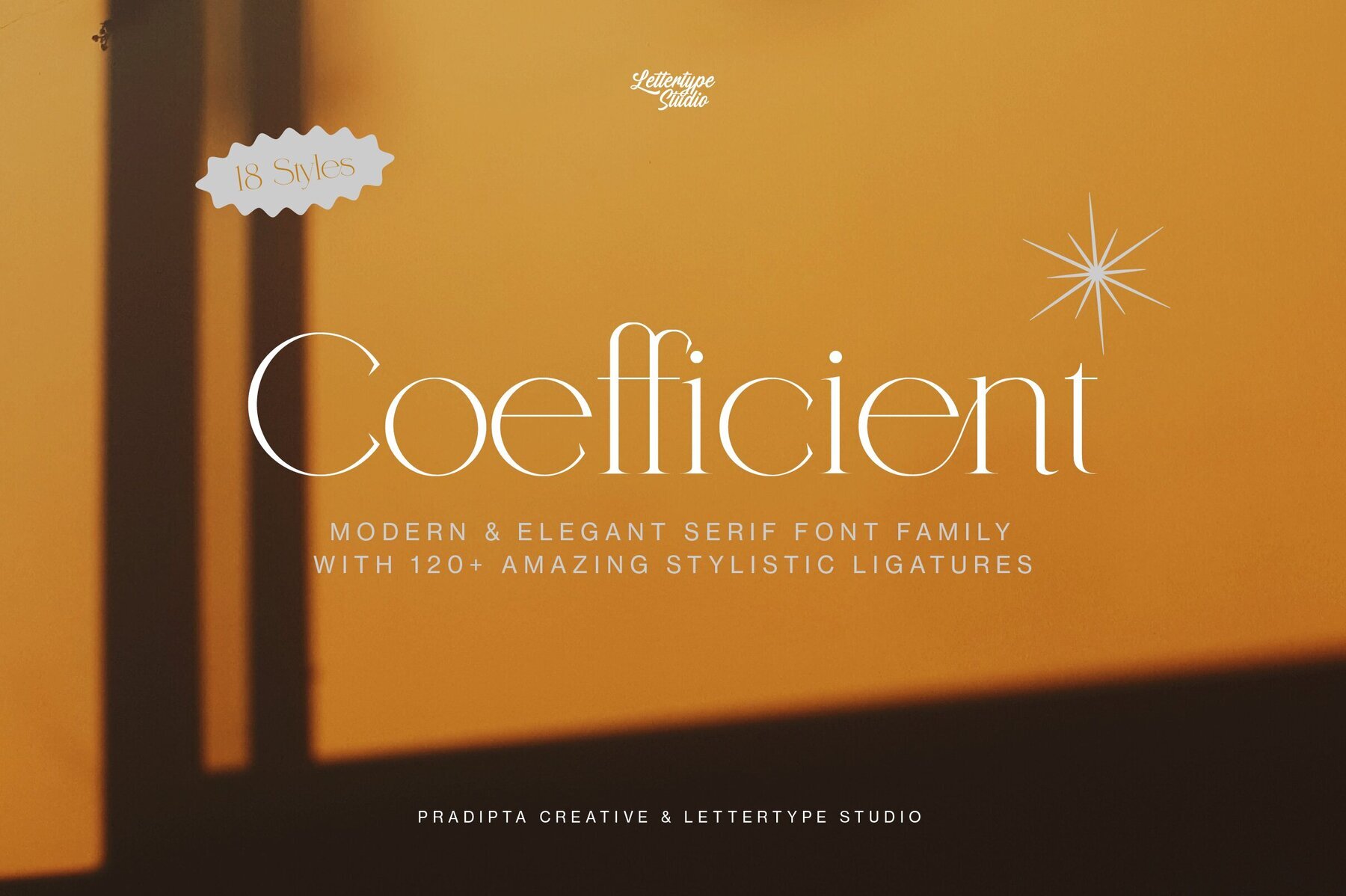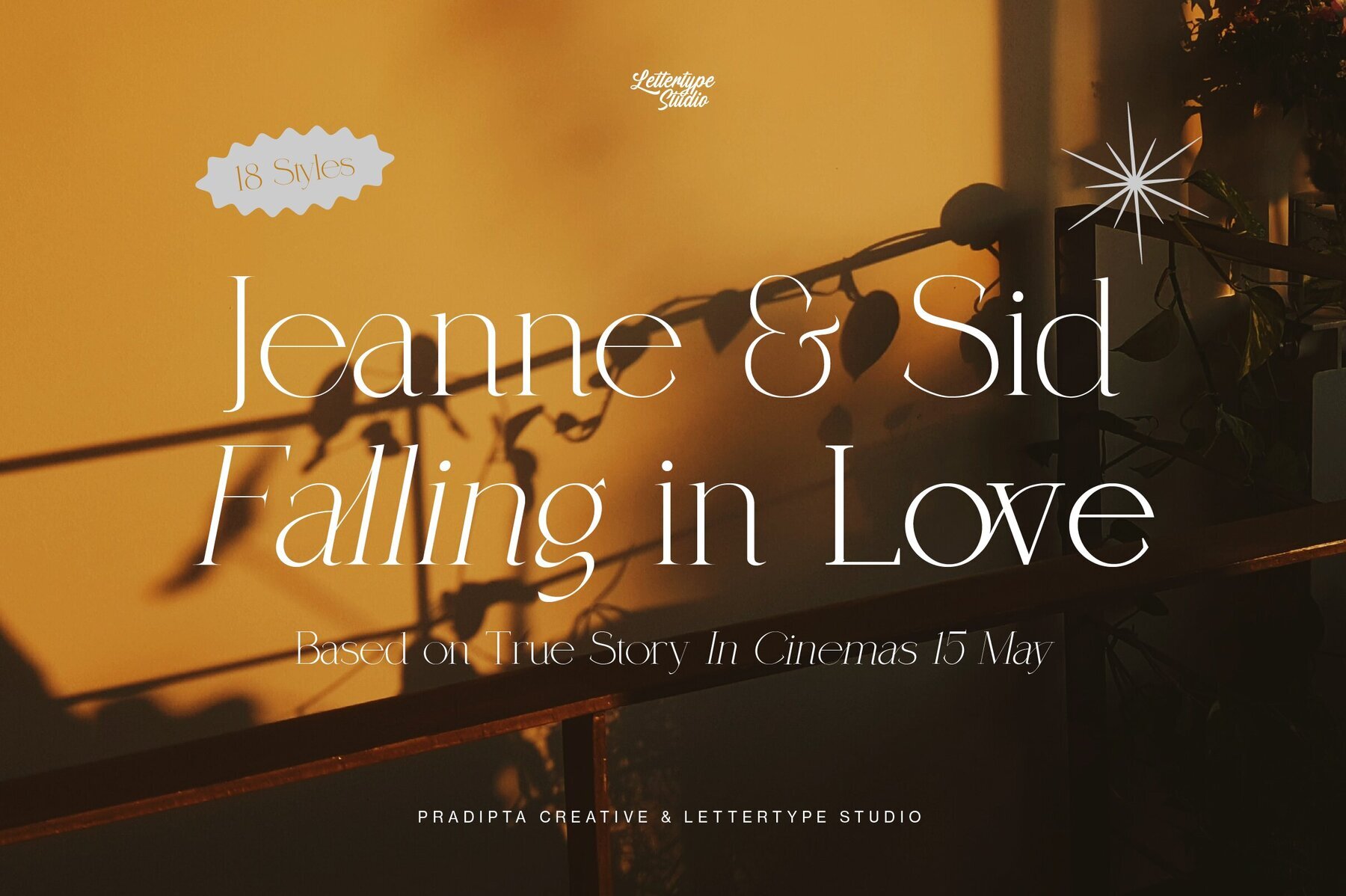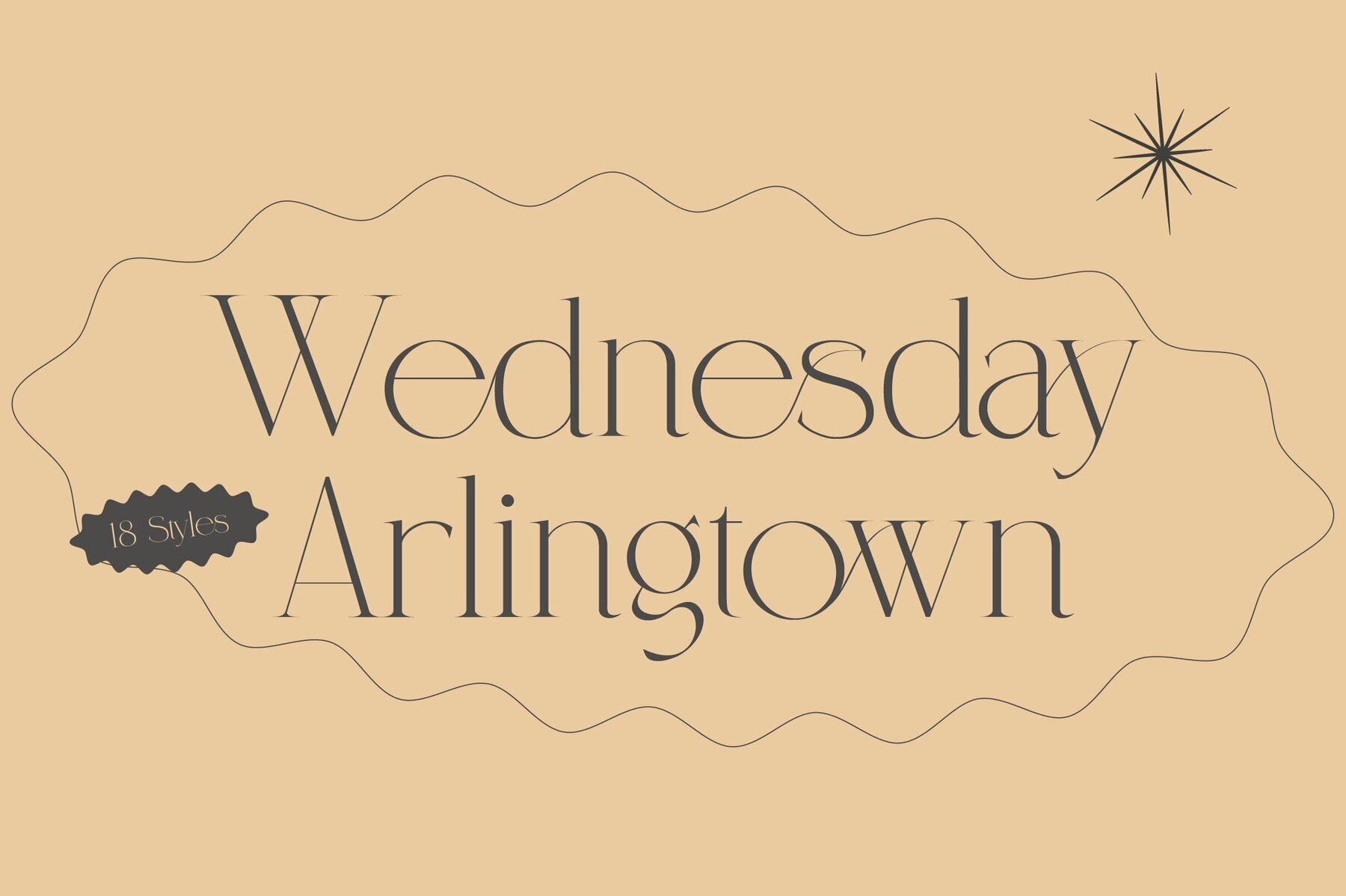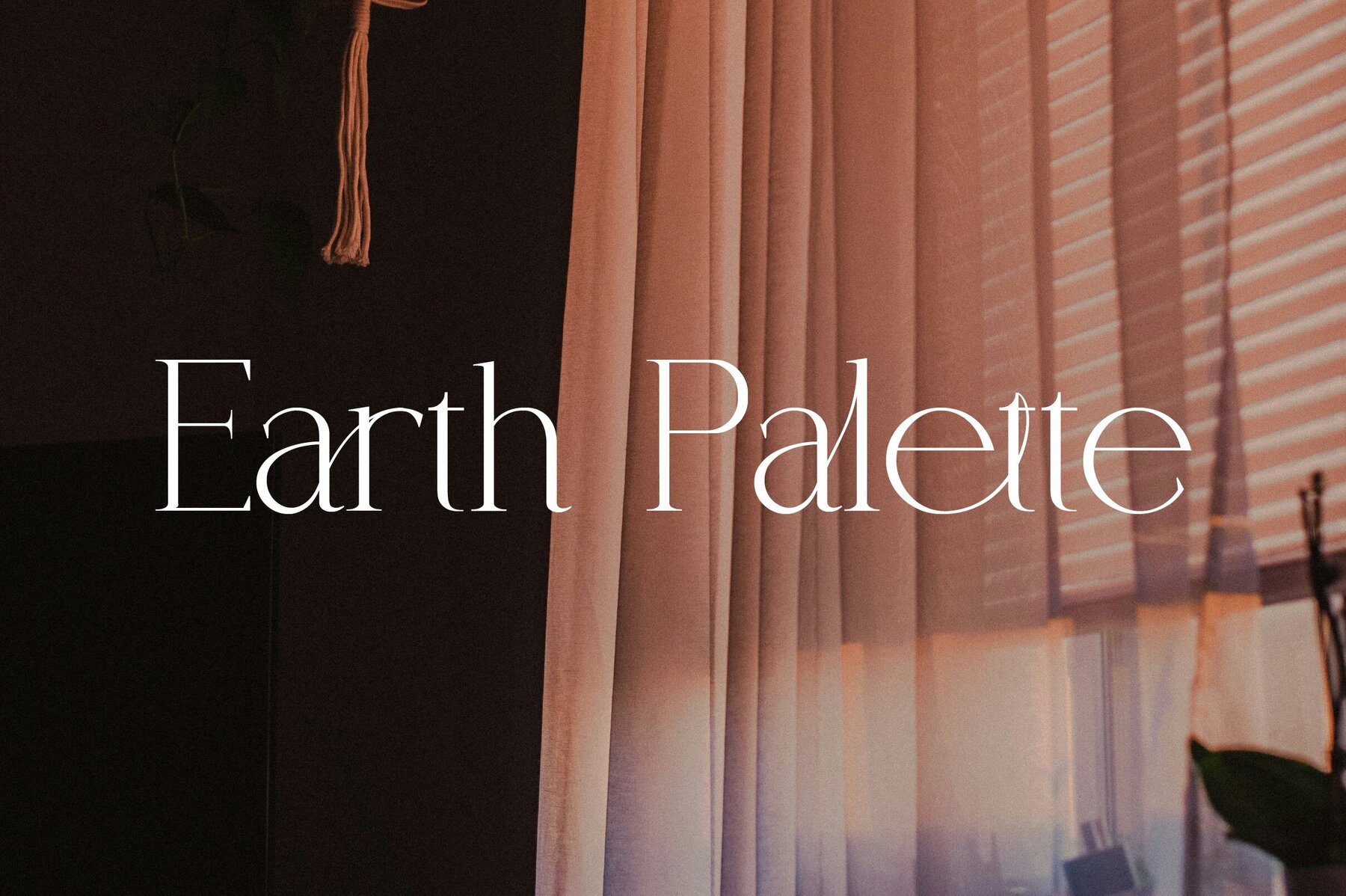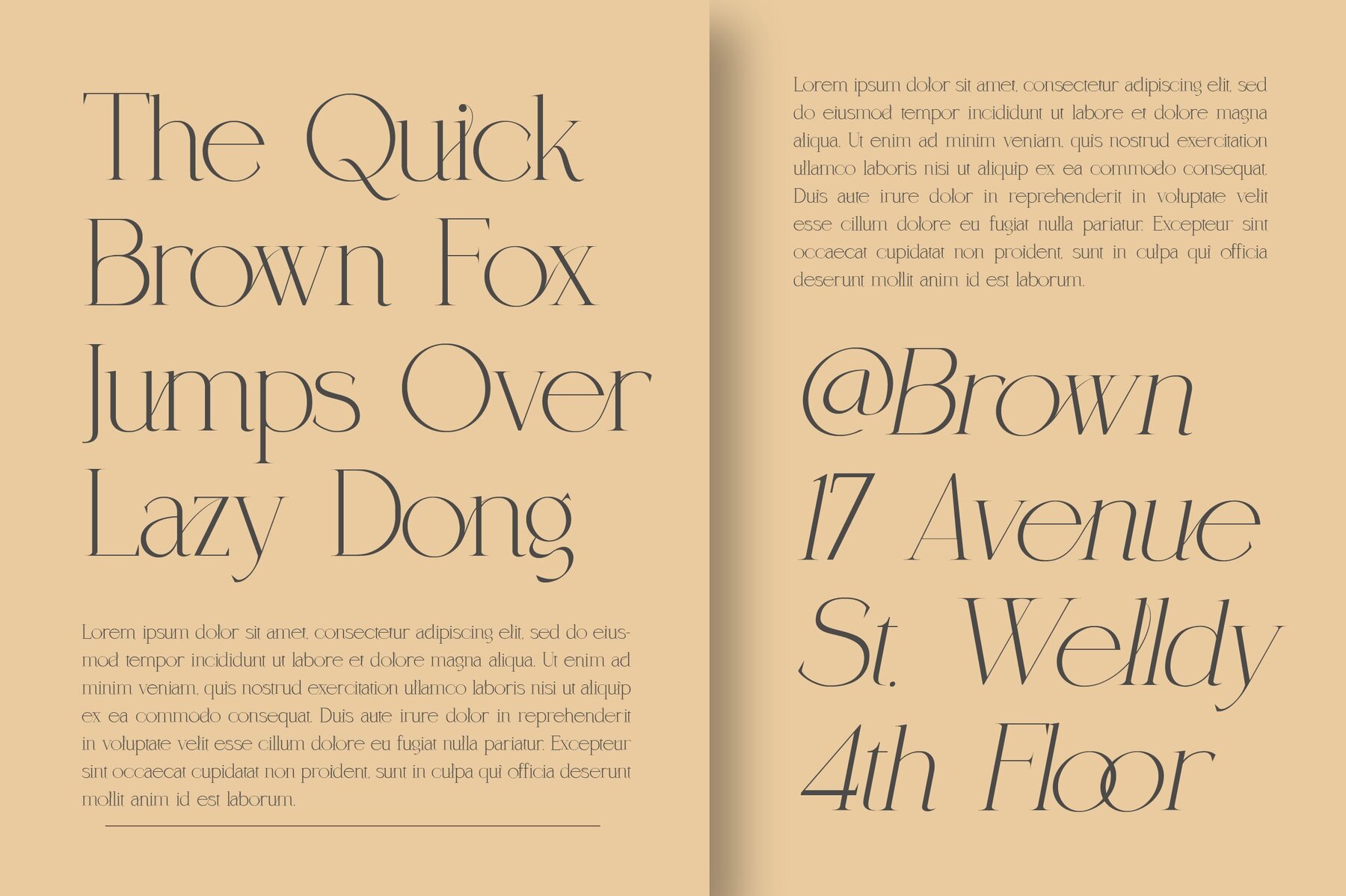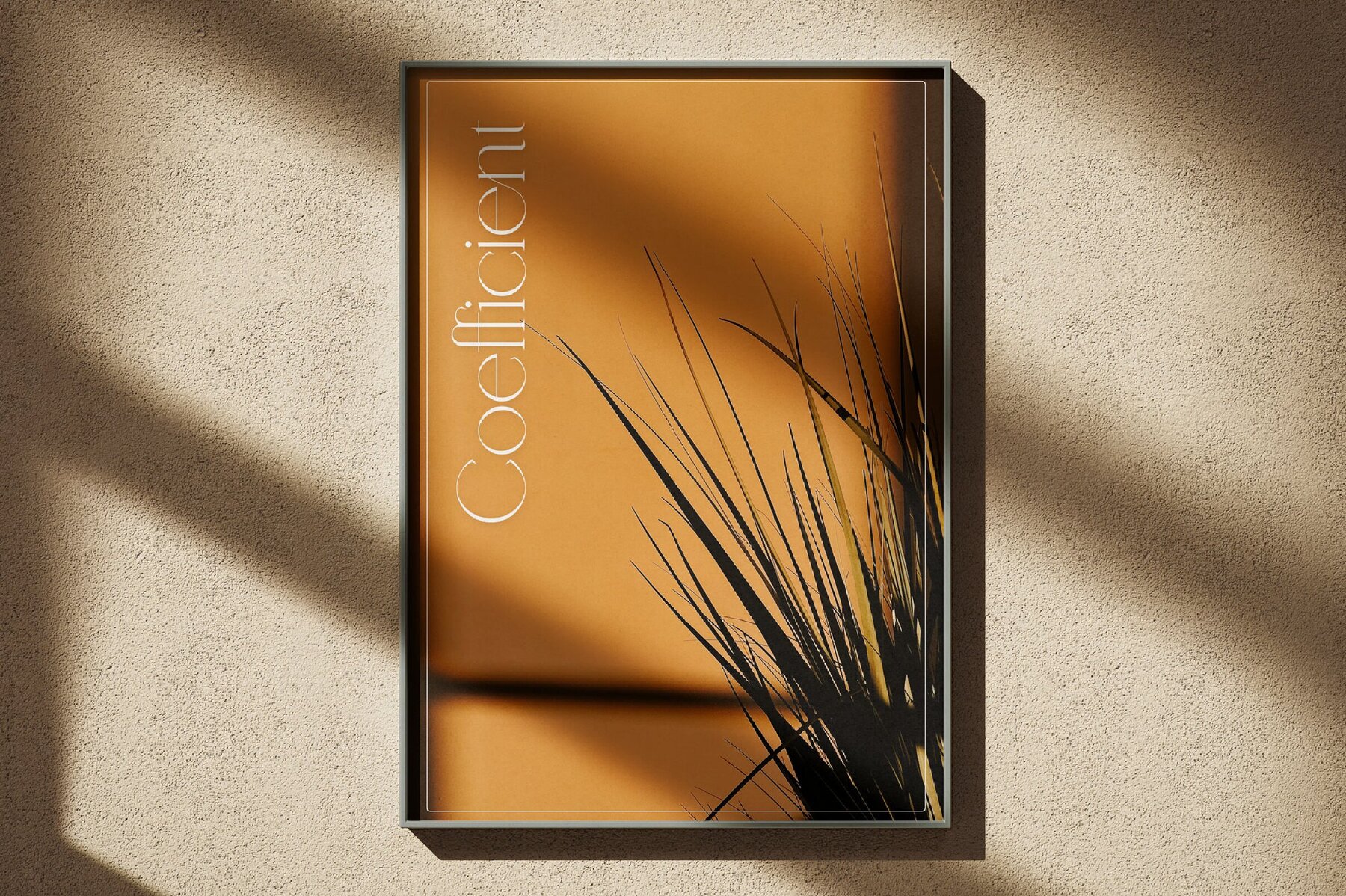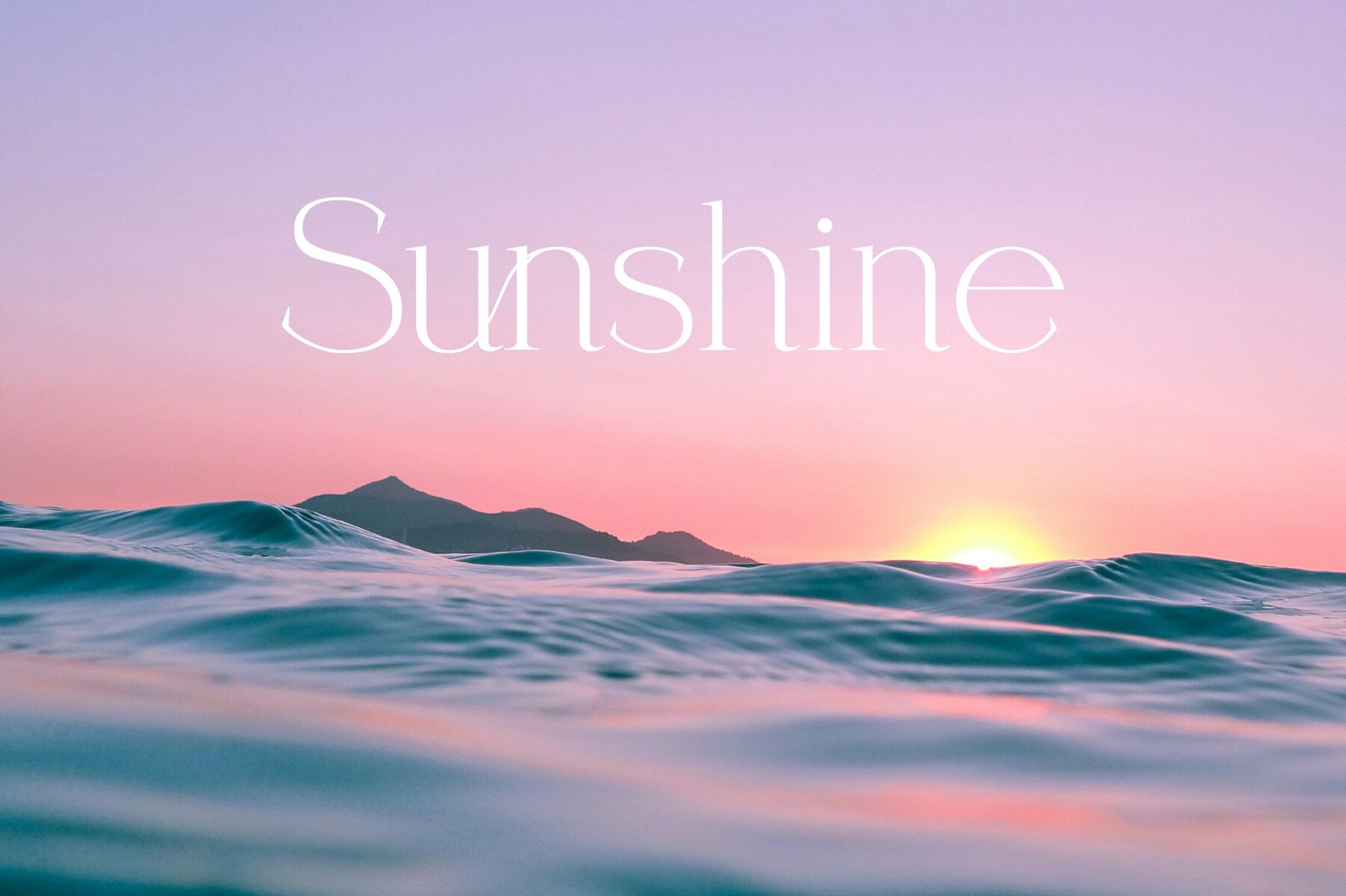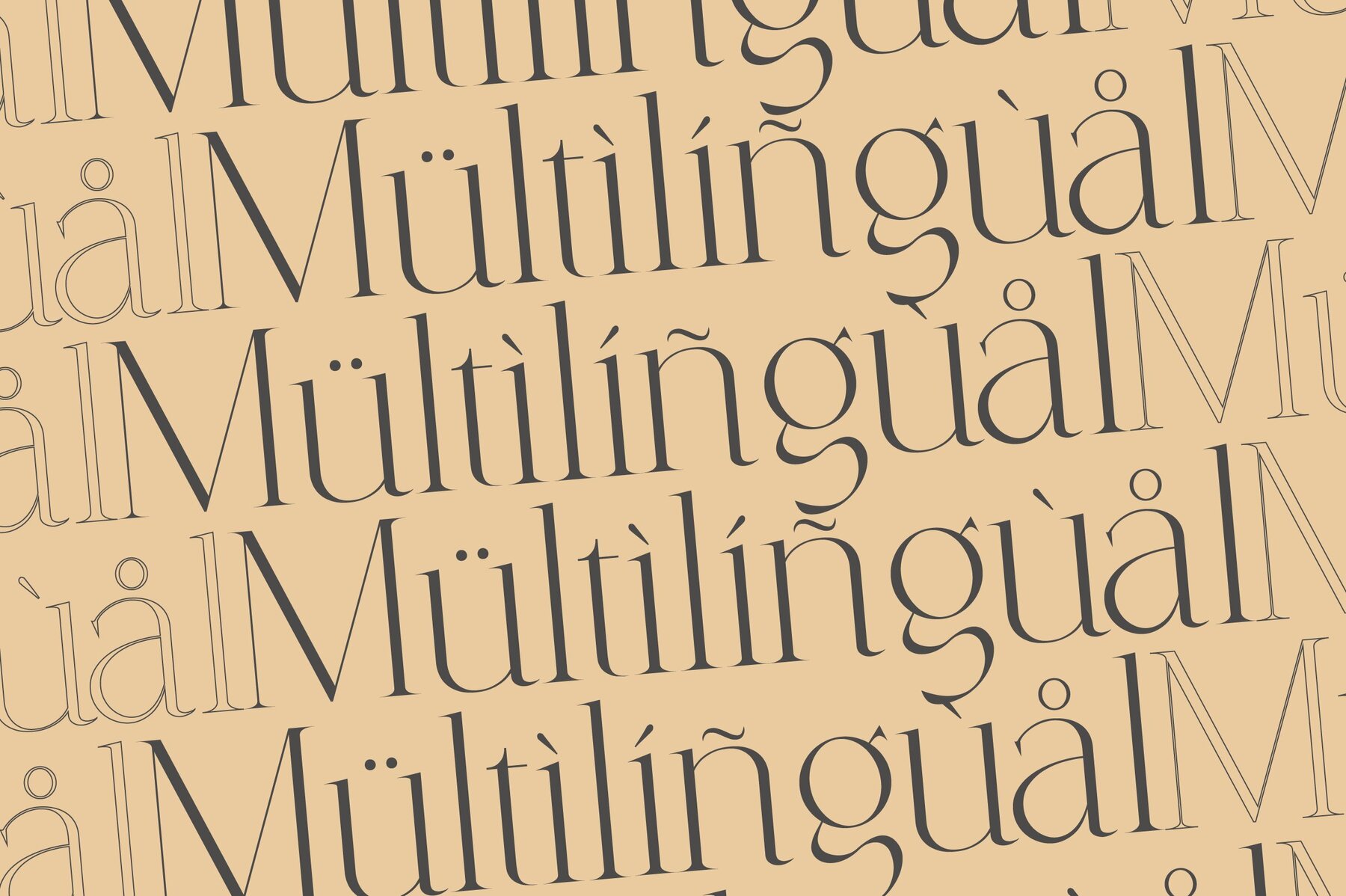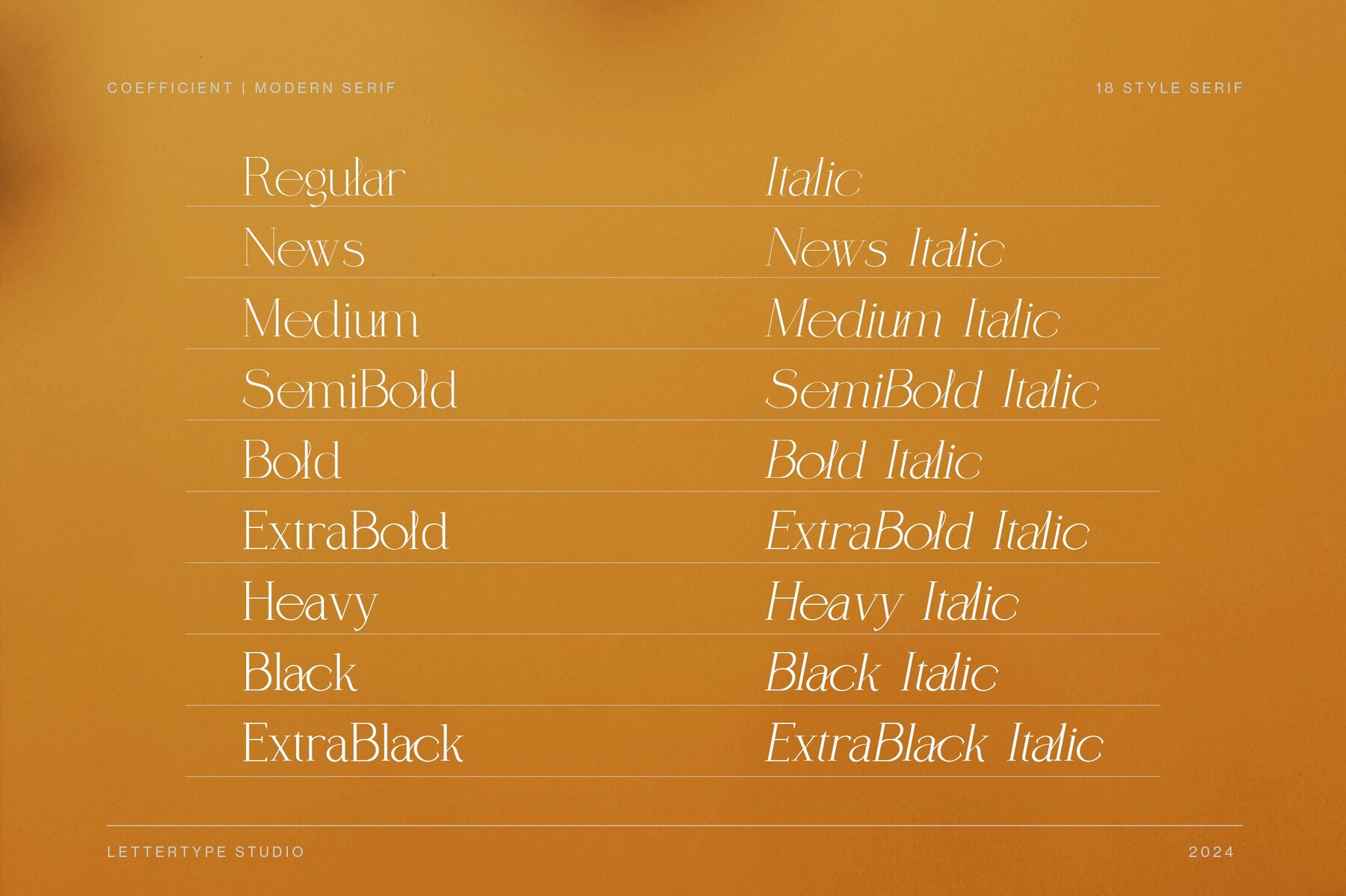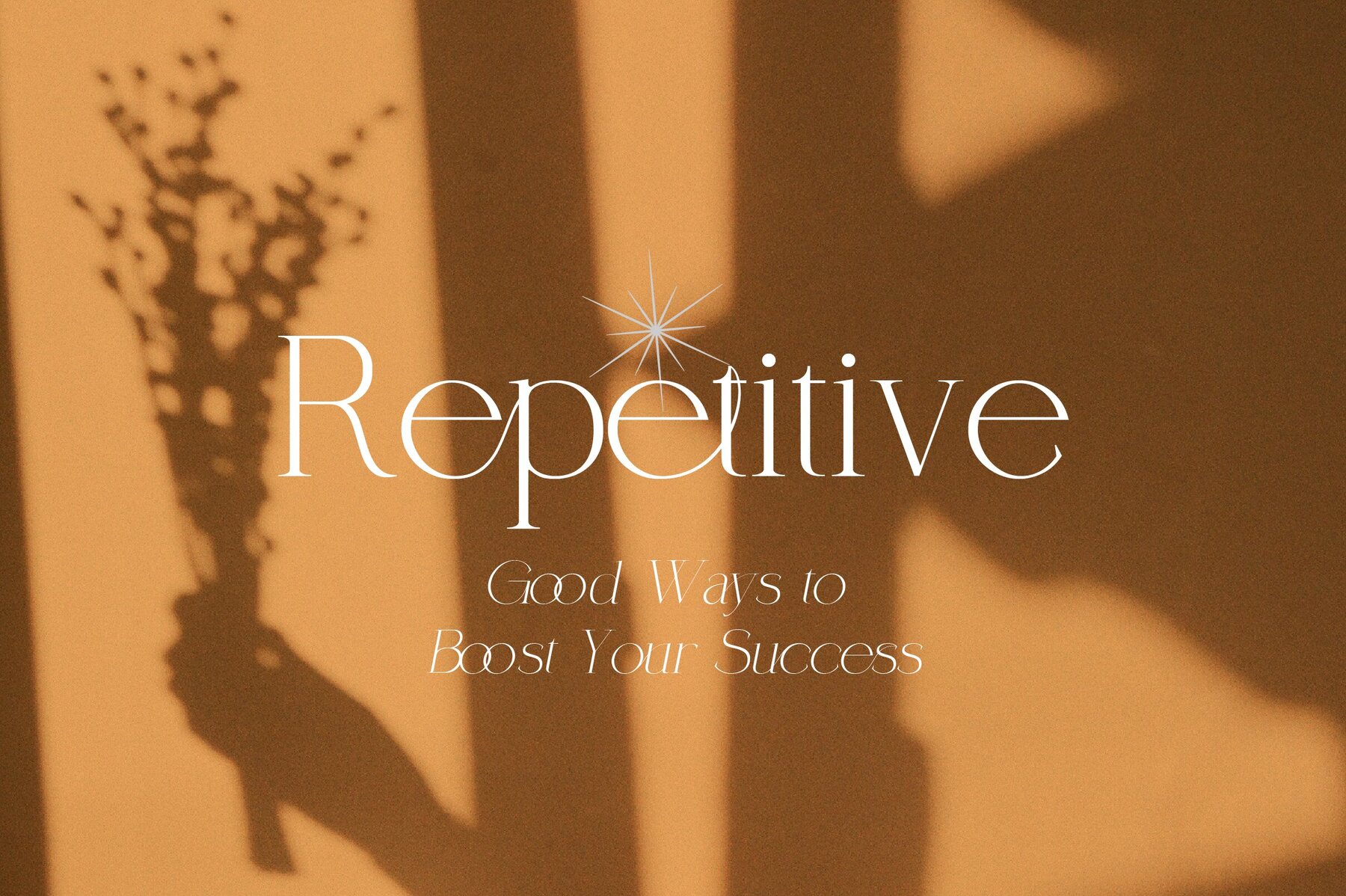
Coefficient Font
Discover the modern elegance of Coefficient, a chic serif font inspired by the refined typography of the 18th century. Perfectly suited for sophisticated branding, editorial designs, and web typography, Coefficient combines classic style with a contemporary flair. Its geometric lines and luxurious details bring timeless appeal, ensuring your projects distinguish themselves with undeniable grace. Ideal for designers in search of versatility and refinement, Coefficient offers a font family with multiple styles and robust multilingual support. Whether used in digital or print media, its modern and vintage elements beautifully enhance any creation. Coefficient excels in both large and small sizes, consisting of 18 styles, each available in normal and italic. Additionally, it boasts over 120 unique ligatures.Coefficient Serif Font